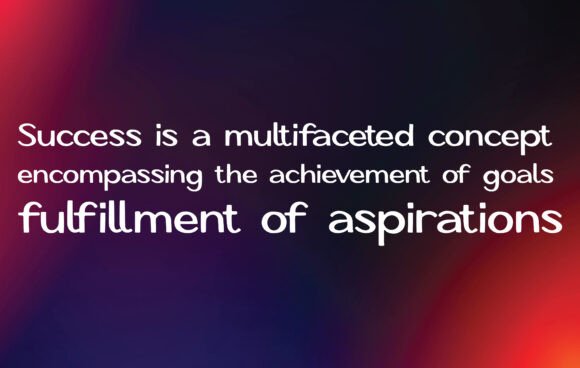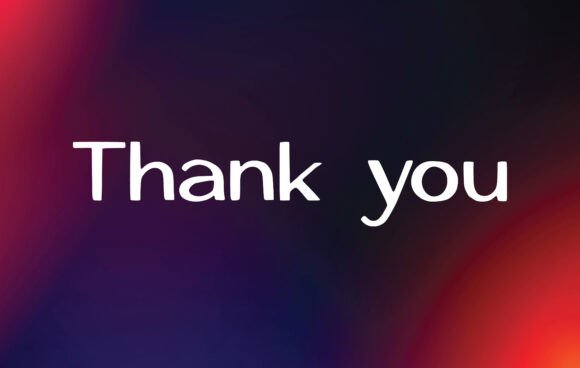
Introduction to Nikki Font
Do you remember that moment when a great idea strikes you, and you can’t wait to bring it to life? It’s that spark of creativity that drives us to push the boundaries of our imagination. For designers, this moment is a treasure trove of possibilities, and the right design resource can make all the difference. That’s where the Nikki Font comes in – a stunning, handwritten font that’s sure to elevate your creative project to new heights.
With its beautiful, high-quality design, the Nikki Font is the perfect choice for creating eye-catching logos, branding, and quotes. Whether you’re working on a personal project or a commercial one, this font is a valuable asset that will help you stand out from the crowd.
Nikki Font
- High-quality, professional font designed for creative projects
- Designed for use in various creative projects, including logos, branding, and advertising
- Perfect design resource for designers, artists, and writers seeking a unique and stylish font
Honest Review: Nikki Font
What works well about the Nikki Font is its high quality design. The transparent background and clean lines make it perfect for use in creative projects where visual clarity is key. I’ve found it particularly useful for branding and logo design.
However, there are a few limitations to consider. The font library is relatively small, which may limit its versatility in certain projects. Additionally, some users may find the font a bit too minimalist, which may not suit every design style.
Overall, I’m quite impressed with the Nikki Font. While it may not be the most extensive font library out there, its high-quality design and free download option make it a valuable resource for designers looking to elevate their creative projects.
Use the Nikki Font with a transparent background to create visually appealing designs. Experiment with different font sizes and styles to add depth and interest to your project.
The Nikki Font is ideal for creating logos, branding materials, and social media graphics. Its high-quality design makes it perfect for use in creative projects that require a professional touch.